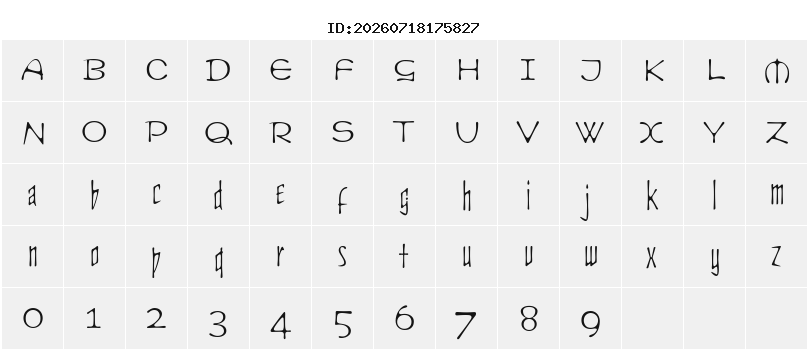
• Font Name: CultPlain
About CultPlain.ttf
CultPlain.ttf is a modern, elegant sans-serif font designed for ultimate readability and visual harmony. Perfect for branding, headlines, web design, and print materials.